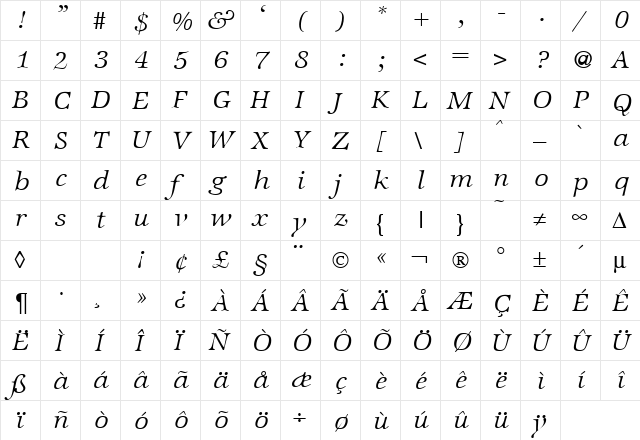
ZabriskieInternationalLight RegularItalic Font Preview
Design Context for ZabriskieInternationalLight Typeface
ZabriskieInternationalLight takes a measured approach to typography — its balanced proportions and neutral character make it a reliable workhorse for both digital and print work. Its italic angle brings a sense of urgency and motion to the letterforms. The delicate stroke weight brings airiness and refinement to layouts.
Pro Tip: Try ZabriskieInternationalLight for annotation and caption copy alongside an upright companion — the contrast in angle creates a dynamic but ordered typographic system.